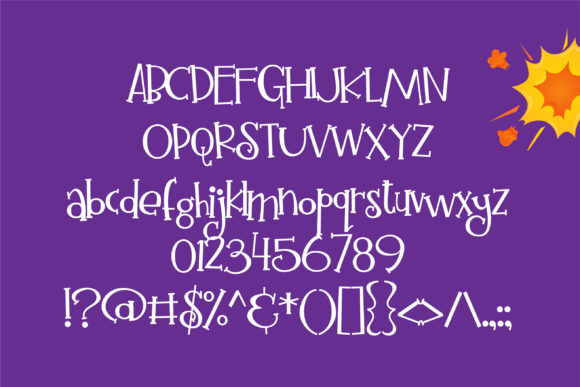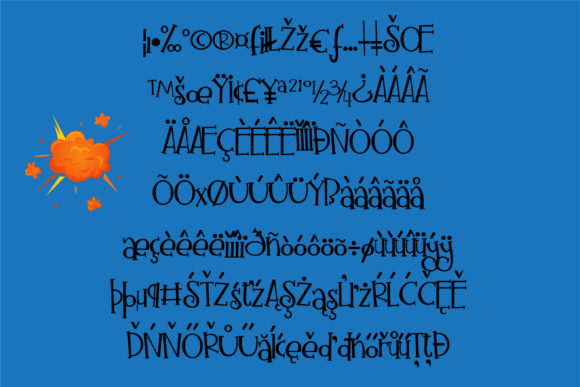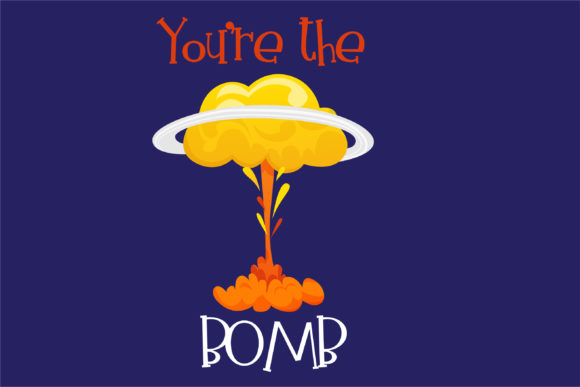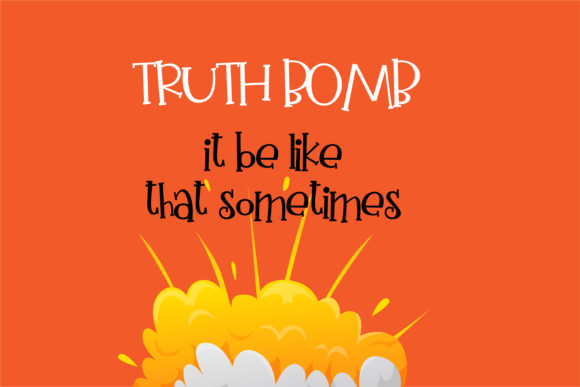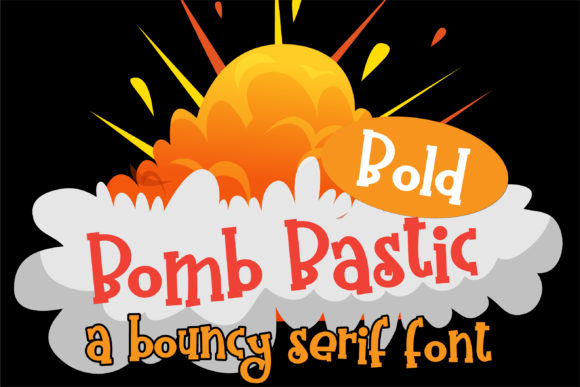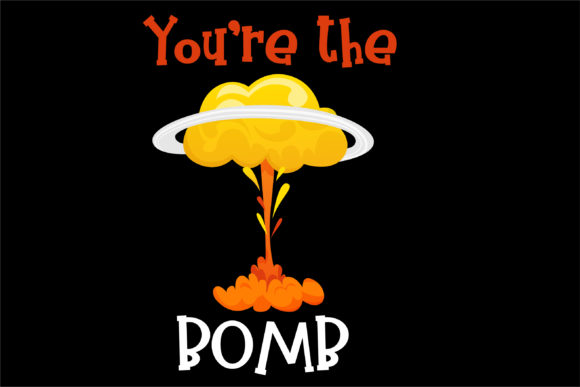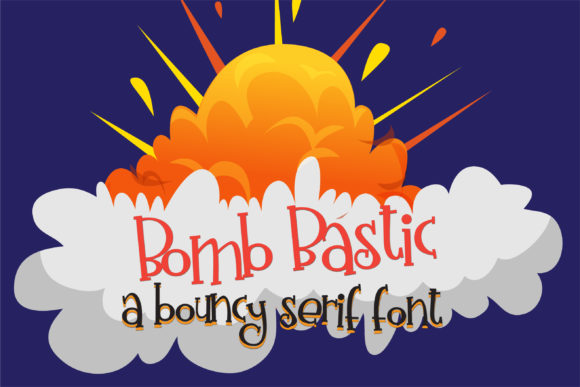
Bomb Bastic Font: The Whimsical and Cool Serif Font That Steals Hearts
Are you tired of using the same old fonts for your design projects? Look no further! Bomb Bastic is a game-changing serif font that brings a unique charm to the table. This whimsical and cool font is perfect for designers and crafters who want to add a touch of personality to their work. In this article, we’ll dive into the world of Bomb Bastic and explore its features, uses, and benefits.
What is Bomb Bastic Font?
Bomb Bastic is a serif font that boasts a distinctive and quirky style. Its unique charm lies in its ability to blend playfulness with sophistication, making it an excellent choice for a wide range of design projects. Whether you’re working on a logo, branding materials, or digital content, Bomb Bastic is sure to make a statement.
Key Features of Bomb Bastic Font
• Unique Serif Style: Bomb Bastic’s serif style is unlike any other. Its distinctive flair and curves add a touch of whimsy to any design.
• Whimsical and Cool: This font is perfect for designers who want to add a dash of personality to their work. Bomb Bastic is both fun and sophisticated.
• Highly Versatile: Whether you’re working on a logo, heading, or body text, Bomb Bastic can be used for a wide range of design projects.
• Easily Readable: Despite its unique style, Bomb Bastic is highly readable, making it perfect for digital and print materials.
Uses of Bomb Bastic Font
Bomb Bastic is an incredibly versatile font that can be used for a variety of design projects, including:
• Logo Design: Create a memorable logo that stands out from the crowd with Bomb Bastic’s unique charm.
• Branding Materials: Use Bomb Bastic for business cards, brochures, and other marketing materials to add a touch of personality to your brand.
• Digital Content: Add some whimsy to your website, social media, or blog with Bomb Bastic’s playful style.
• Packaging Design: Make your product stand out on store shelves with Bomb Bastic’s eye-catching font.
Benefits of Using Bomb Bastic Font
So, why choose Bomb Bastic for your design projects? Here are just a few benefits:
• Stand Out from the Crowd: With Bomb Bastic, you can create designs that are truly unique and eye-catching.
• Express Your Creativity: This font gives you the freedom to express your creativity and add a touch of personality to your work.
• Save Time: With Bomb Bastic, you can create stunning designs in no time, thanks to its ease of use and versatility.
Tips for Using Bomb Bastic Font
To get the most out of Bomb Bastic, here are a few tips:
• Experiment with Sizes: Try using Bomb Bastic in different sizes to create visual interest and hierarchy.
• Pair with Other Fonts: Combine Bomb Bastic with other fonts to create a unique and eye-catching typography.
• Play with Colors: Use Bomb Bastic with different colors to add an extra layer of personality to your design.
In conclusion, Bomb Bastic is a game-changing serif font that brings a unique charm to the table. Its whimsical and cool style makes it perfect for designers and crafters who want to add a touch of personality to their work. With its versatility, readability, and ease of use, Bomb Bastic is sure to become a favorite in your design arsenal. So, fall in love with Bomb Bastic’s unique charm and take your designs to the next level!